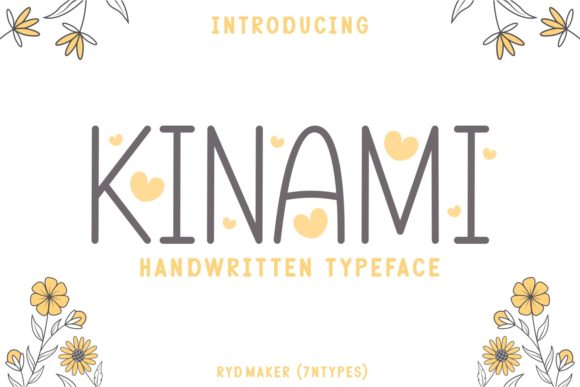
Prepare yourself to be swept away by the enchanting world of Kinami, a script font that will ignite your creativity and make your designs bloom with charm and elegance.
At first glance, Kinami may seem like an ordinary handwritten font, but don't let its simplicity fool you. Each letter is a masterpiece, crafted with meticulous care, like a love poem penned by a passionate heart. The curves flow effortlessly, creating an intimate and inviting ambiance, while the delicate strokes add a touch of playfulness and warmth.
Whether you're a seasoned designer or a budding artist, Kinami is the perfect companion for your creative endeavors. It's not just a font; it's an expression of your emotions, a way to bring your heartfelt messages to life.
Picture this: a love letter adorned with the graceful strokes of Kinami, its words dancing across the page like a gentle whisper. Or a wedding invitation, its elegance enhanced by Kinami's timeless beauty. The possibilities are endless, limited only by the boundless realms of your imagination.
Kinami is more than a font; it's a key that unlocks the door to a world of emotions. Let its enchanting curves carry your words and captivate the hearts of your readers. Download Kinami today and embark on a creative journey that will leave an unforgettable mark.